Script font with hearts can enchant your audience with its passionate cursive strokes and dreamy swashes. It also can help you to set the romantic mood and convey your message well in your design. Our fonts not only possess those characteristics but also their uniqueness. Your design will be both romantic and original.
Key Takeaway:
- A well-chosen script font with heart accents can create a more personal and intimate connection.
- Heart decorations on script fonts are usually on the diacritics, swashes, and alternates.
- These fonts enhance emotional feeling, perfect for love-themed branding and heartfelt messages.
15 Script Font with Hearts that are Unique and Romantic
According to Svaiko, an expert in copywriting, script fonts are the most fitting to promote a personal approach and give a sense of familiarity through their unique letter shapes. Below is the list of our script fonts that shows their uniqueness to establish the romantic vibe in your design.
1. Our Infinity Love
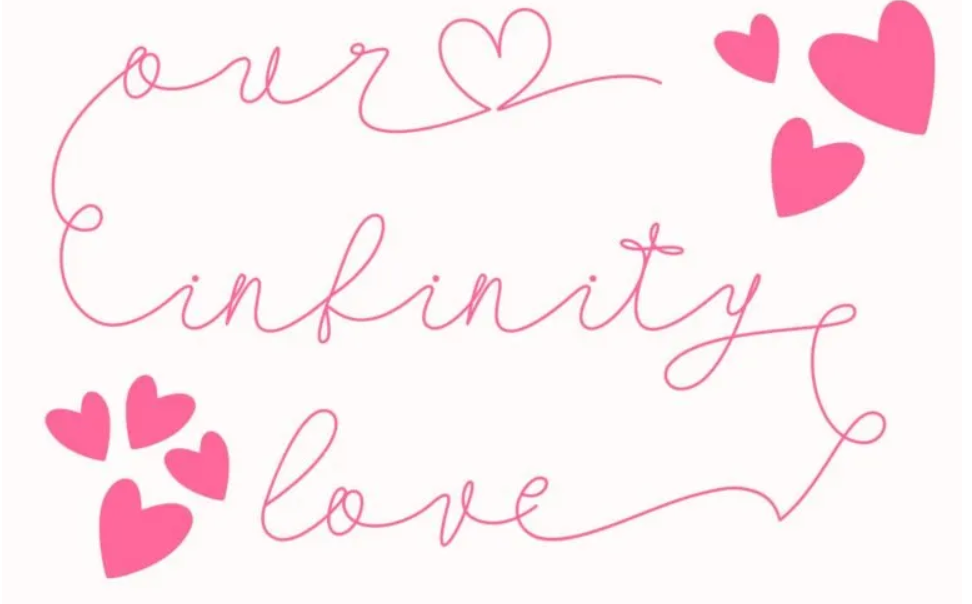
Our Infinity Love’s heart-shaped swashes illustrate an endless romance between two souls. Display this font’s thin and smooth strokes on your book titles and stickers.
2. Lovely Couple
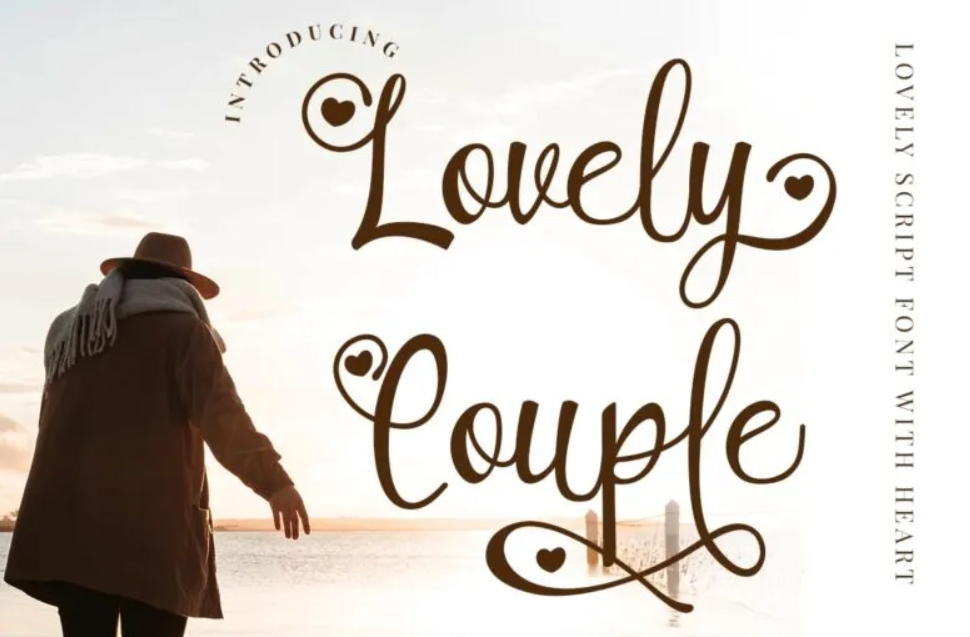
Lovely Couple weaves bold hearts inside the font’s looping flourishes, depicting a couple’s hands that keep holding on to their love.
3. Beauty and Love
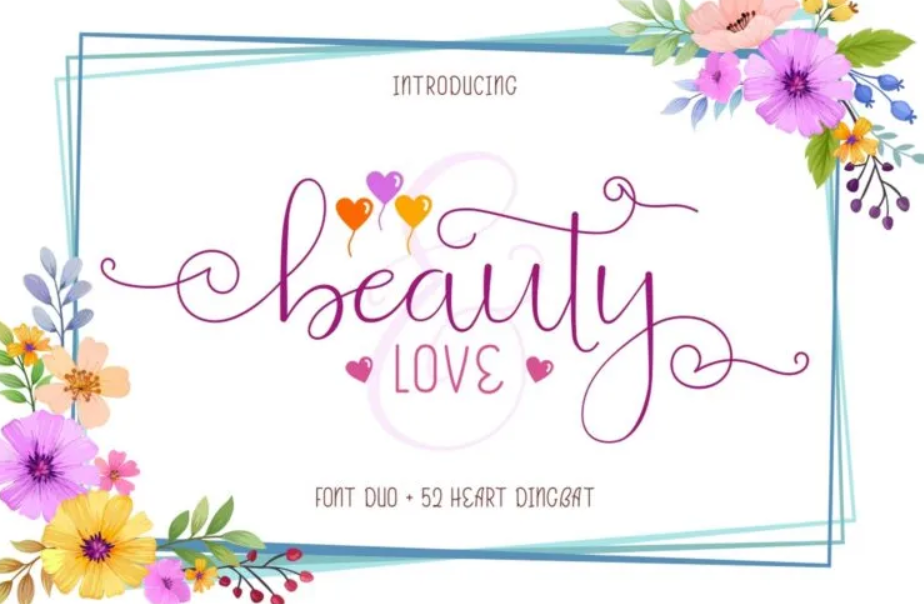
Beauty and Love’s heart-shaped flourishes are as lovely as the beautiful moments two people in love share. Its delicate contrast adds an elegant touch to your wedding invitations.
4. Blooming Memories
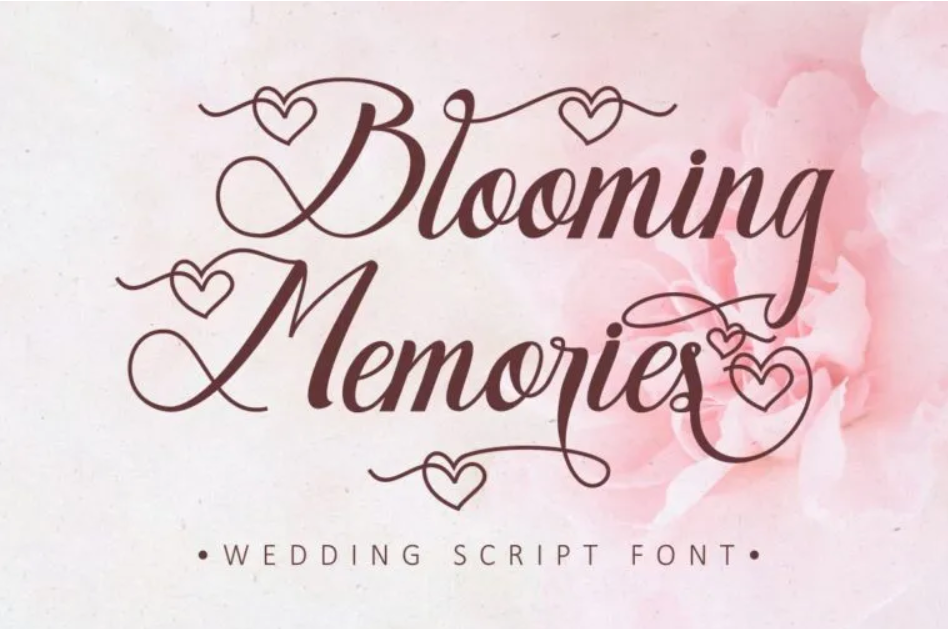
Blooming Memories exudes the sweetness of memories between a passionate couple through the font’s medium weight and thin swashes with decorative hearts.
5. Blossom Heart
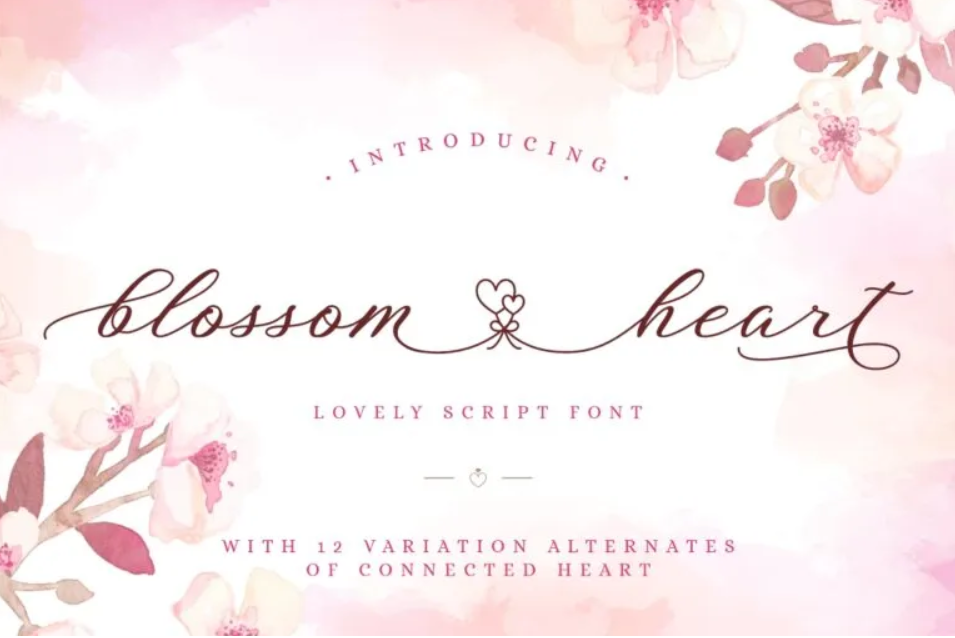
Blossom Heart is a script font with heart in the middle. Its strokes are as graceful as a bride walking down the aisle. Showcase their perfection on your wedding designs.
6. Gayesha
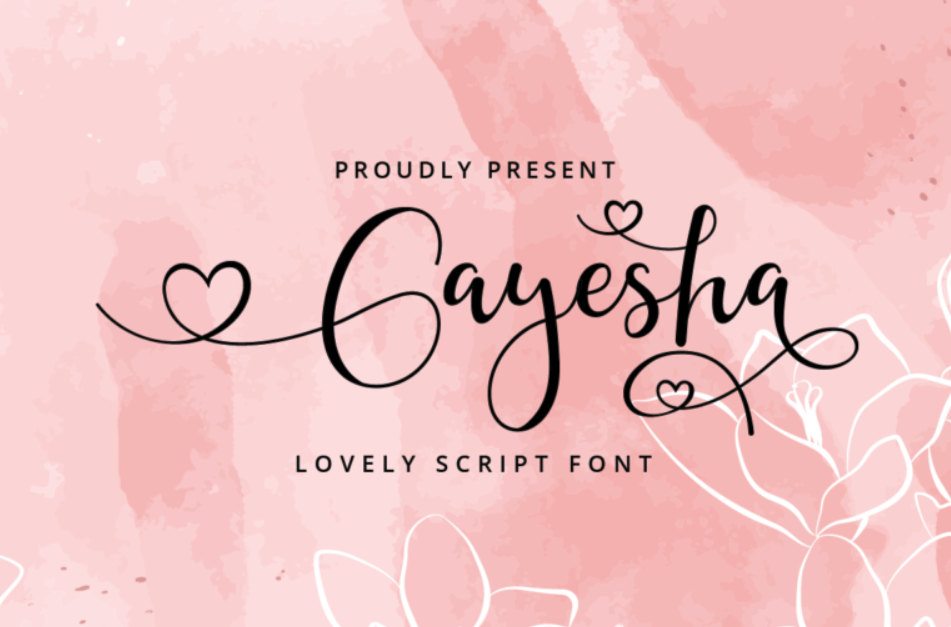
Gayesha is the script font with hearts, swirly letterforms, and feminine alternates. Enhance the romantic mood on your logos and headlines with this font.
7. Wedding Bouquet
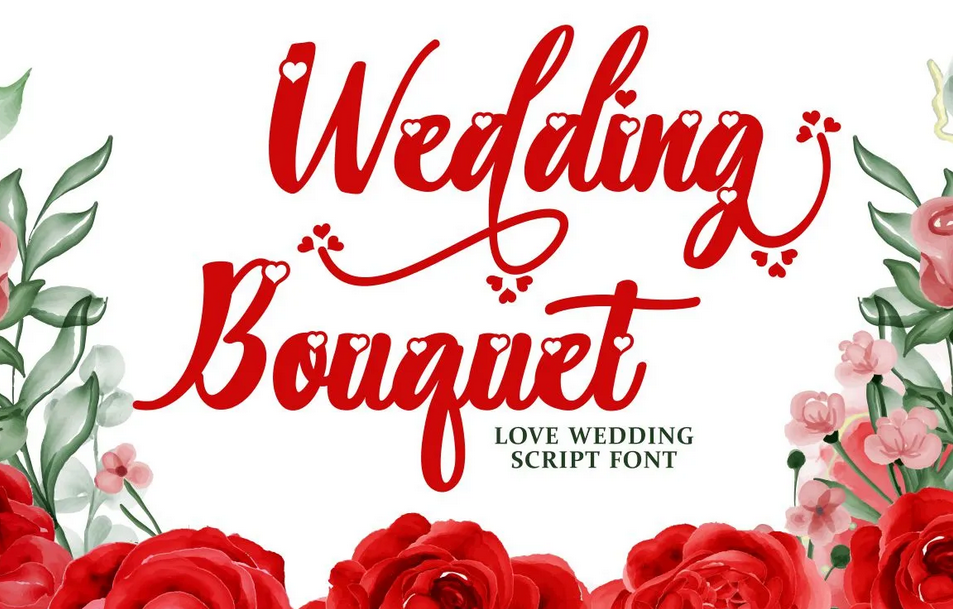
Wedding Bouquet is a bold script font with heart over i. The font’s ovals, legs, and swashes are also decorated with sweet-looking hearts.
8. Valentjin
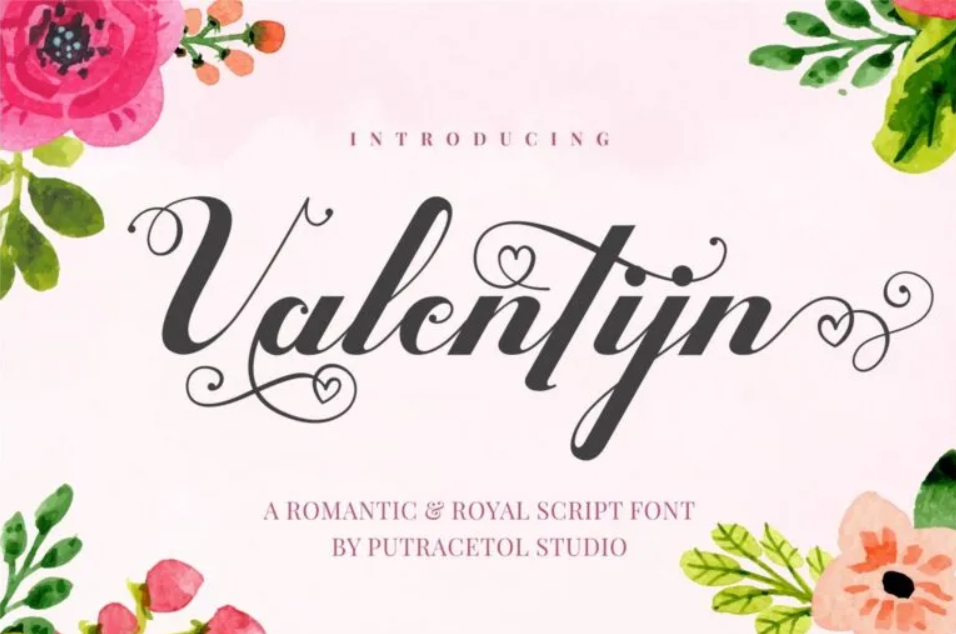
Valentjin’s gorgeous contrast appears both royal and romantic. Moreover, the heart decoration on the flourishes will add sweetness to your greeting cards.
9. Marithe
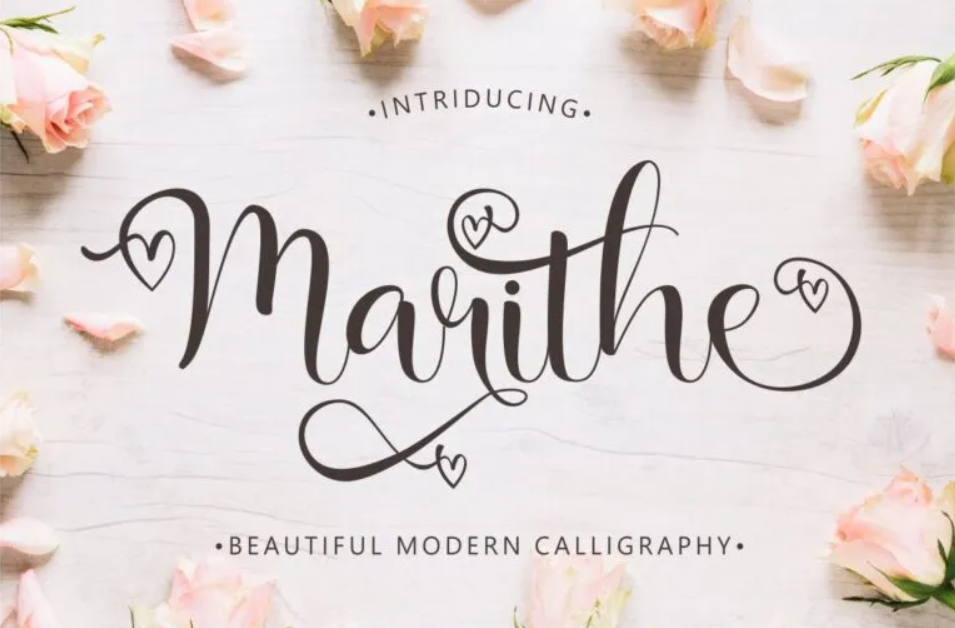
Marithe’s medium weight elevates the font’s elegance along with the thin ligatures and heart decorations at the end of the swashes.
10. Romantic Dates
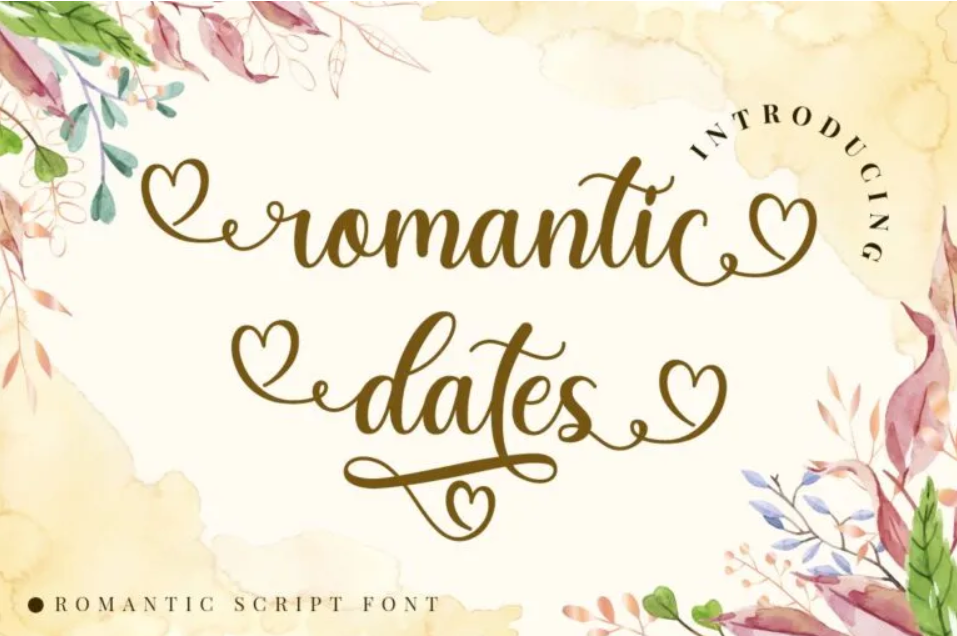
Romantic Dates strikes a perfect balance in thickness. This mesmerizing font has versatile swashes with medium-sized hearts at the ends.
11. Shafiqa
Shafiqa’s beauty lies in the thick descenders and ovals. Apply the font’s delicately drawn swashes to add more heart shapes on your headlines and covers.
12. Enchantia
Enchantia captivates through its smooth lines and graceful swashes. Exhibit the font’s heart-shaped decorations as a declaration of affection on your greeting cards.
13. Twilight Blossom
Twilight Blossom places distorted heart shapes at the end of the font’s gorgeous swashes. It also has smooth strokes with subtle ligatures.
14. Yuanita
Yuanita’s clean thickness and delicate thinness contribute to the font’s legibility, while its swashes elegantly form both swirls and hearts.
15. Stasya
Stasya’s main attention is the intricate flourishes that subtly shape like plump hearts. Romanticize your romantic design with its elegant handwritten strokes.
10 Other Font Styles to Elevate Your Romantic Design
Here we have selected other font styles that can be a good pairing with the ones above and make your design as romantically unique as possible.
16. Laniesky
Laniesky’s cursive strokes complement the delicate ligatures and modest swashes. Showcase the font’s long descenders on your wedding invitations and designs.
17. My Love Letter
My Love Letter presents round edges and constant thickness with heart-shaped alternates and decorations. Use its quirky font to express a young love in logos.
18. The Love Movies
The Love Movies’ readability is shown through its clean lines. Create romantic and sweet merchandise and packaging with this cute font.
19. Love Paradise
Love Paradise is the script font with hearts that displays constant thickness but with various sizes of the ovals. Take advantage of the heart decorations in this font for cute stickers.
Script font with hearts are pretty and appealing. With their handwritten strokes and spectacular swashes, your designs will be as romantic as diving into the romance itself. However, the characteristics sometimes hinder the readability in your design.